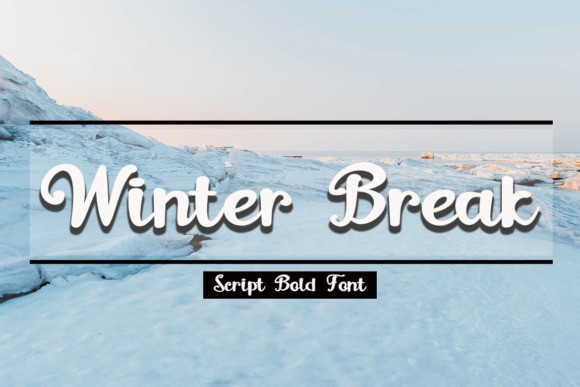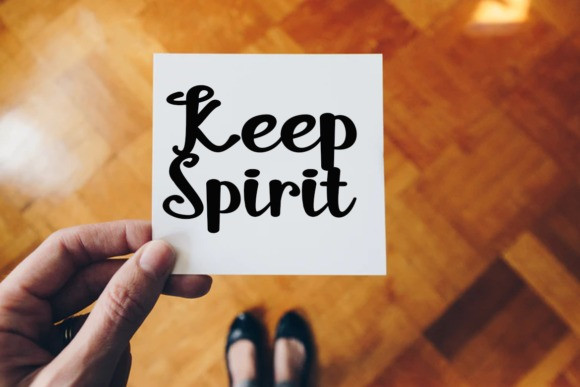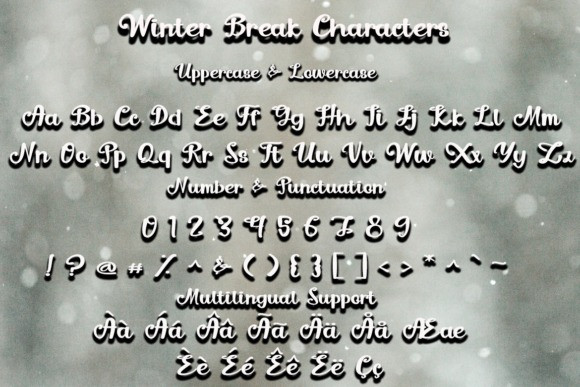
Winter Break Script Font
Winter Break is a sweet and flowing handwritten font. It looks stunning on wedding invitations, thank you cards, quotes, greeting cards, logos, business cards and every other design which needs a handwritten touch.